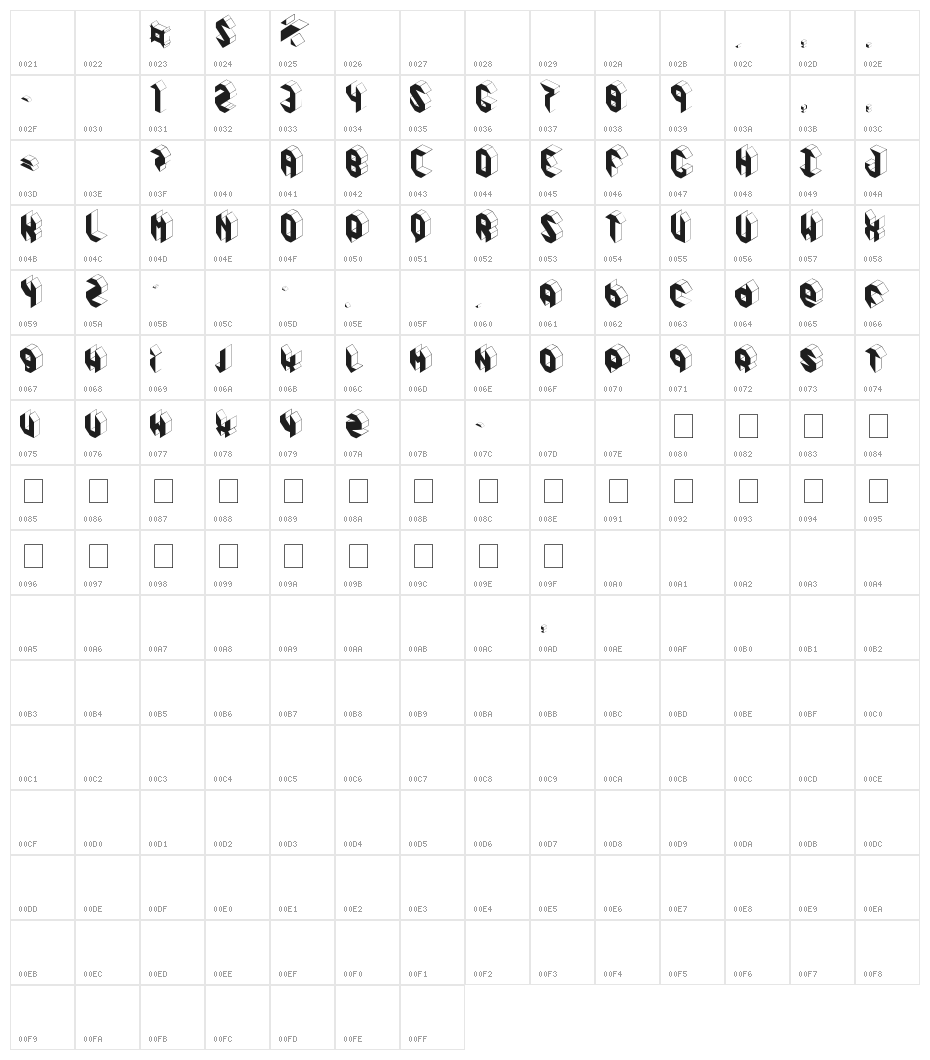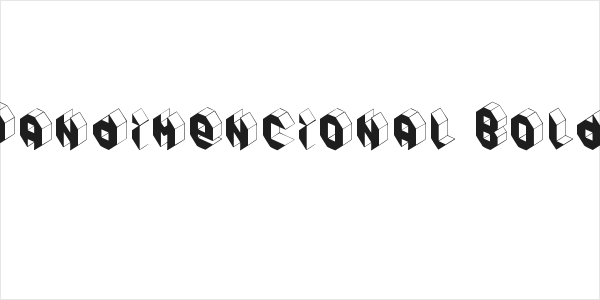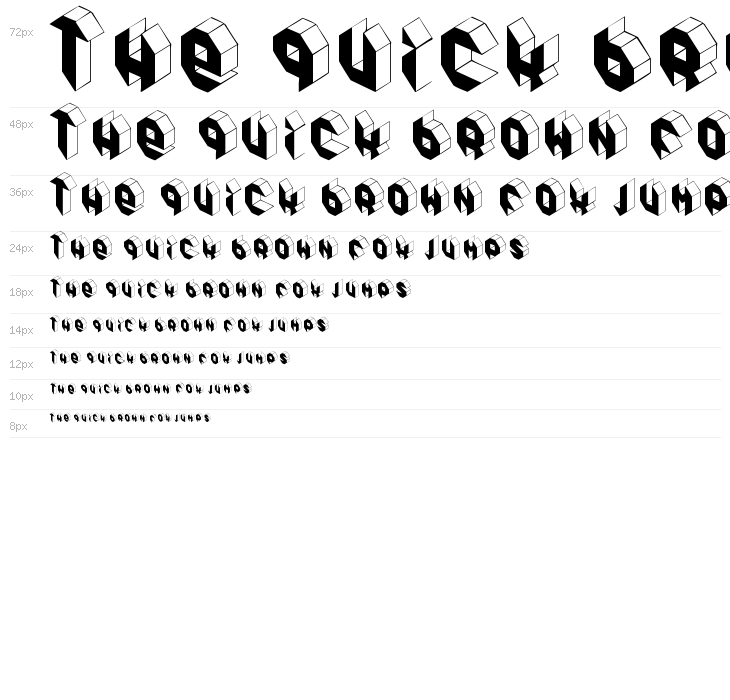
Pandimencional Bold Font
Pandimencional Bold Description
This font features a bold, three-dimensional design with a geometric and angular style. Each character appears to be constructed from a series of blocks, giving it a unique, architectural appearance. The letters have a strong presence, with thick lines and sharp angles that create a sense of depth and structure. The font's design is consistent across uppercase, lowercase, numbers, and special characters, maintaining its bold and striking look throughout. The overall effect is modern and dynamic, making it suitable for projects that require a standout, eye-catching typeface.
| Proposed Projects | Ideal for posters, logos, video game graphics, and any project needing a bold, modern typeface. |